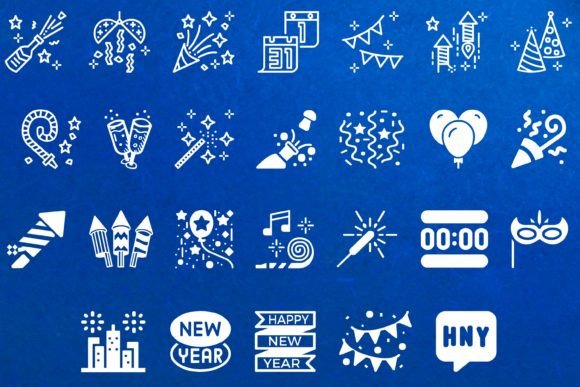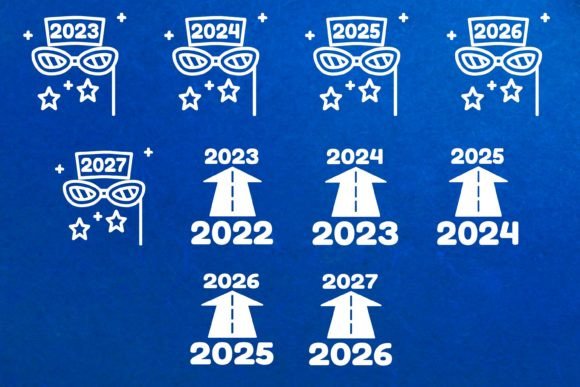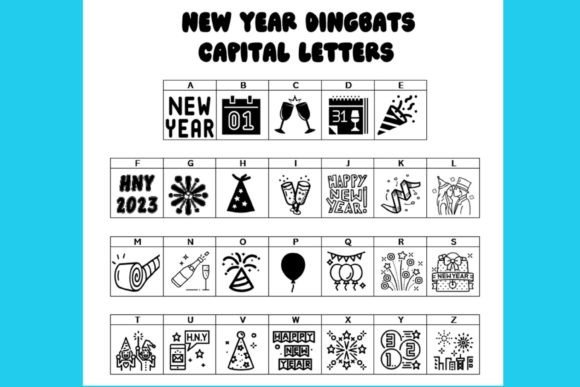
ABOUT NEW YEAR FONT
The New Year’s Eve celebration is a time of excitement and new beginnings, and the New Year’s Eve dingbats font captures the essence of this festive occasion. With a collection of 62 doodles and symbols, including 26 capital letters, 26 small letters, and 10 numbers, this font offers an enormous variety of options to enhance your New Year’s projects.
Whether you’re creating invitations, greeting cards, banners, social media graphics, or any other New Year-themed designs, the New Year’s Eve dingbats font provides you with an abundance of choices. Each letter and number is uniquely designed to reflect the spirit of the holiday, incorporating elements such as fireworks, champagne glasses, clocks, confetti, party hats, and more.
The versatility of this font allows you to mix and match the doodles and symbols to create customized messages and designs. The capital letters, small letters, and numbers provide you with the flexibility to incorporate the font seamlessly into your projects. You can use the doodles as decorative elements, borders, or even create unique typography by combining the letters and symbols in creative ways.
With the New Year’s Eve dingbats font, you can add a touch of celebration and excitement to your designs. It’s a fantastic resource for creating visually appealing and engaging New Year’s Eve materials that will captivate your audience. The variety of doodles ensures that you’ll find the perfect symbol to complement your message and enhance the overall aesthetic of your project.
This font is designed to be easily accessible and can be used in various design software or even handwritten for a more personal touch. The possibilities are endless, allowing you to unleash your creativity and create memorable New Year’s designs.
So, as the years roll around and the New Year’s Eve celebration approaches, let the New Year’s Eve dingbats font be your go-to resource for adding a festive and playful touch to your projects. With its wide range of doodles and symbols, you’ll have no shortage of choices as you create your New Year’s projects and welcome the new year with style and creativity.